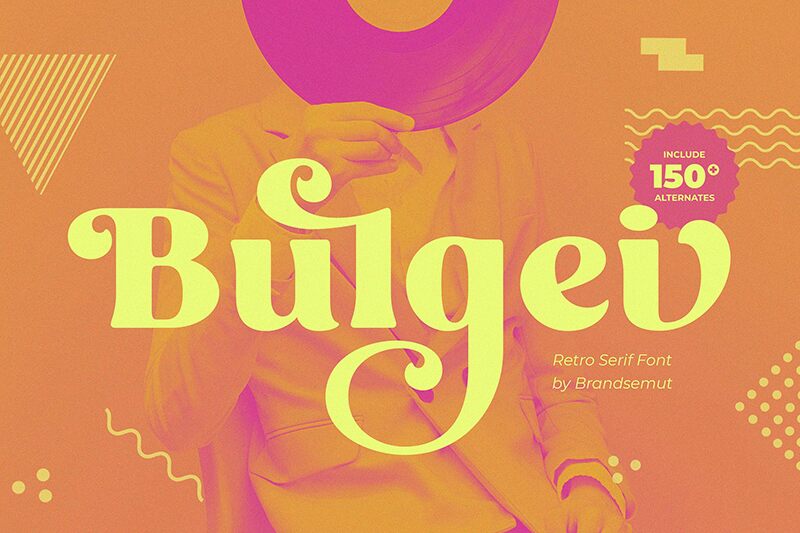
Bulgei is a retro serif font designed by BrandSemut, perfect for creating a vintage feel in any project. With its bold weight, this typeface exudes confidence and strength. Its unique serifs add character and charm to any design, making it suitable for a variety of projects such as logos, posters, and packaging designs. Whether you're looking to create a classic feel or add some personality to your work, Bulgei is the perfect choice. Embrace the nostalgia of the past with this versatile font that will make your project stand out from the crowd.
Bulgei